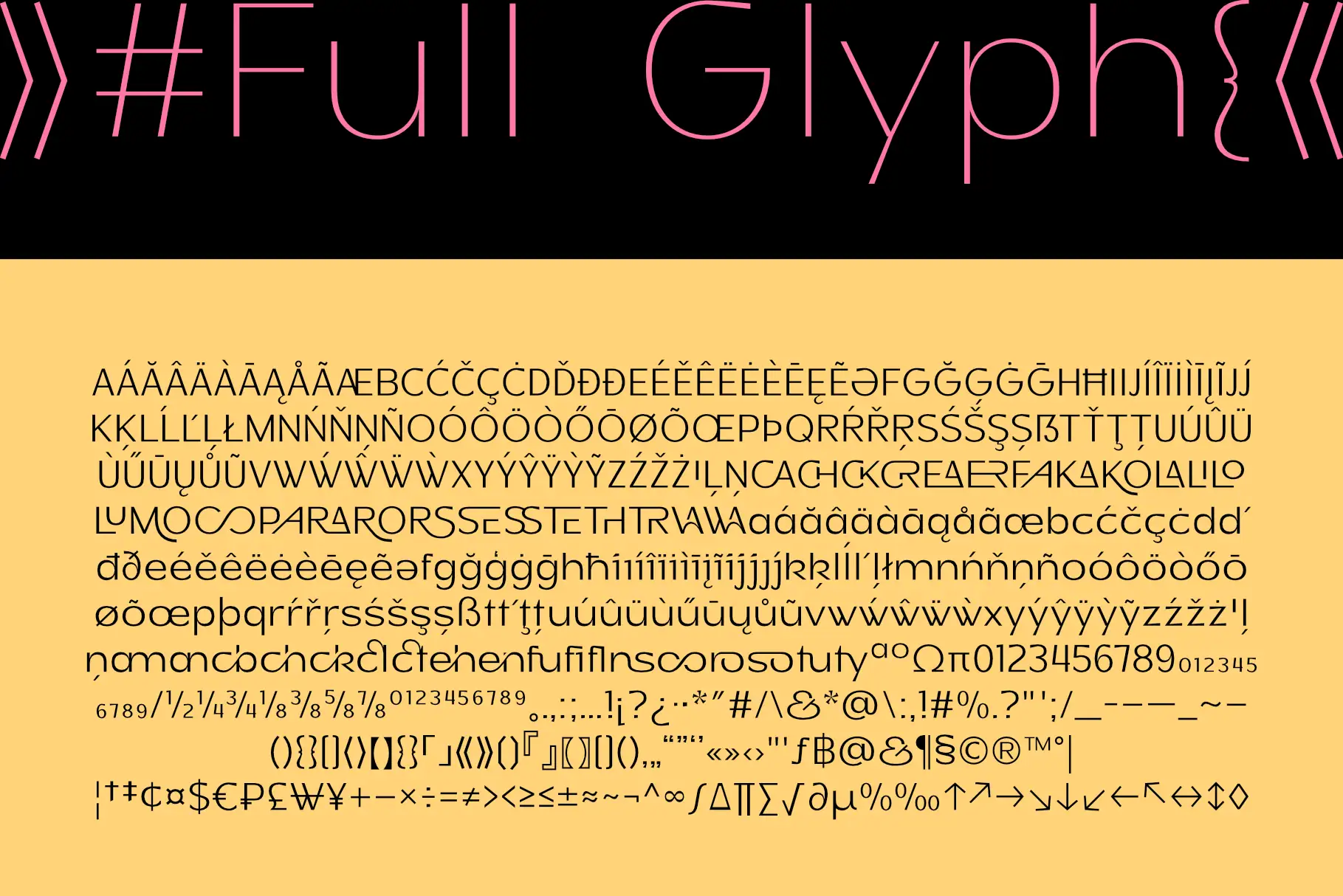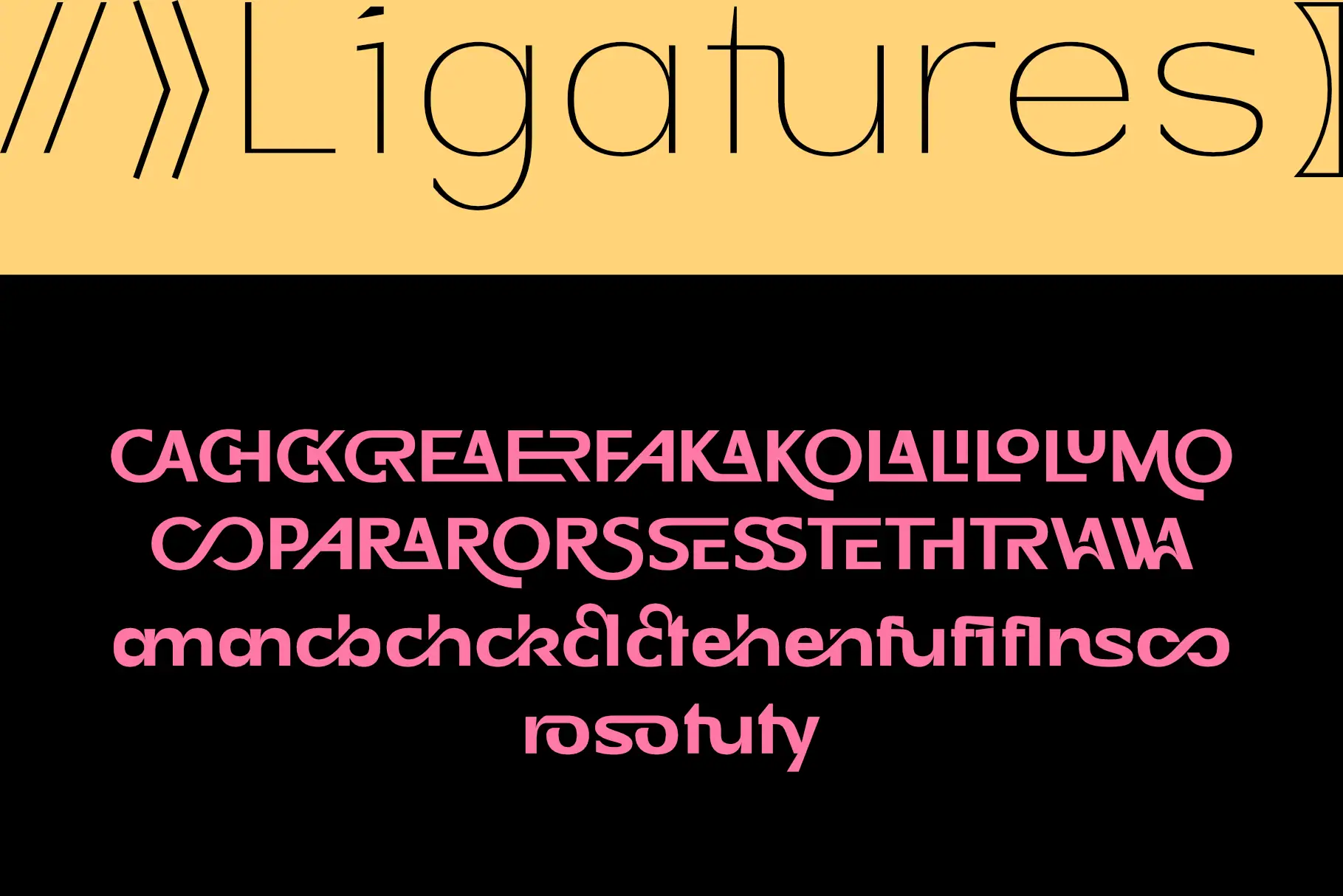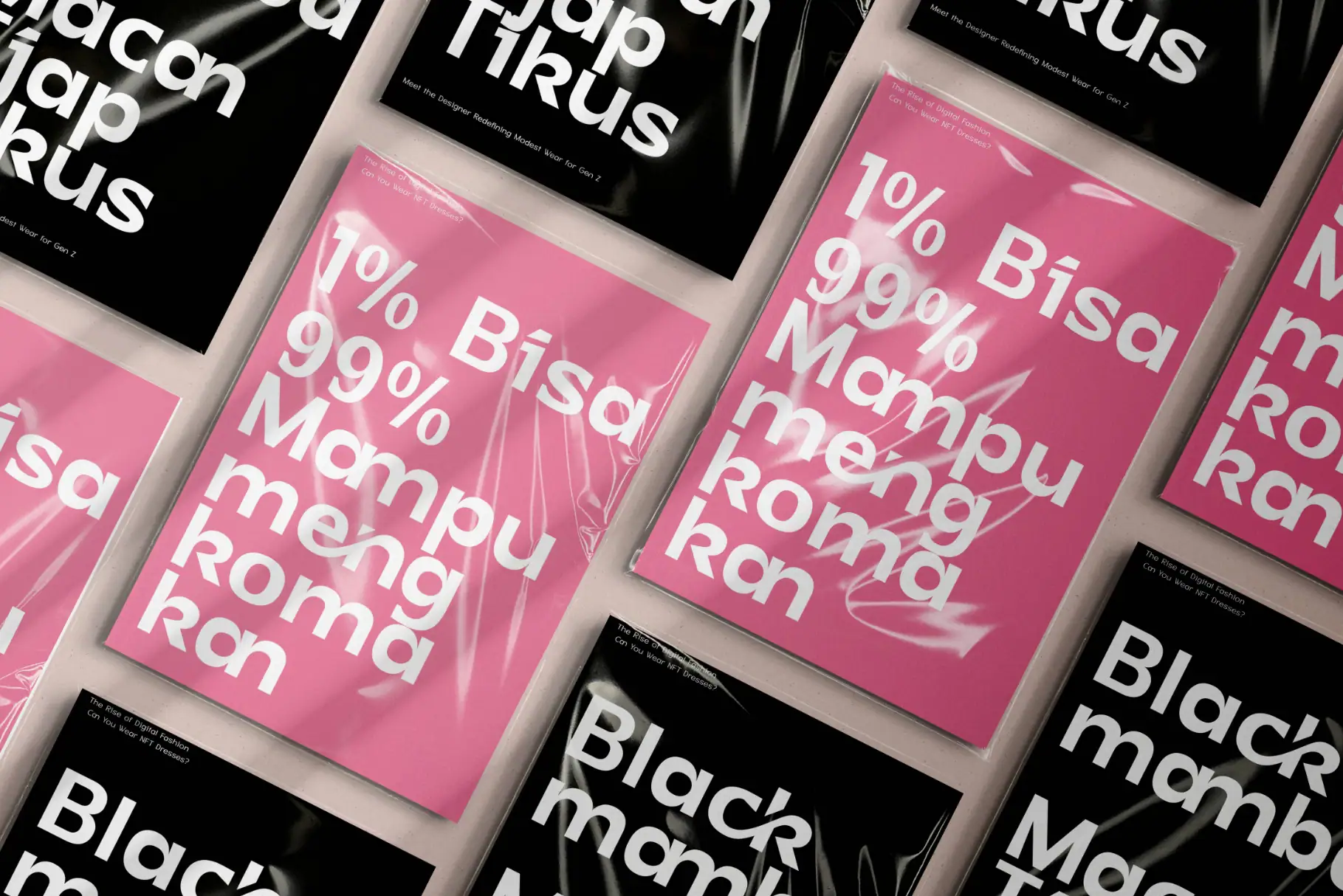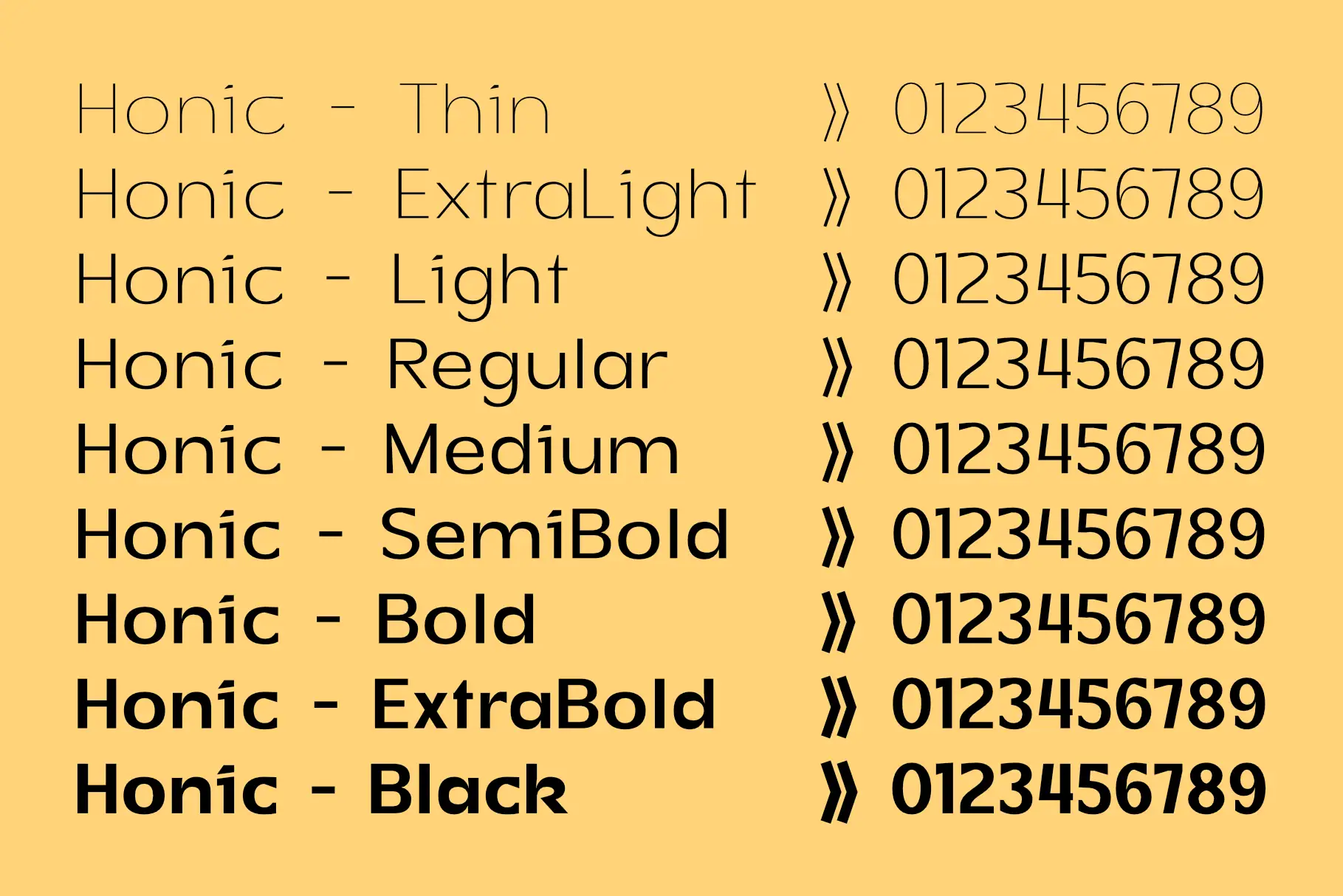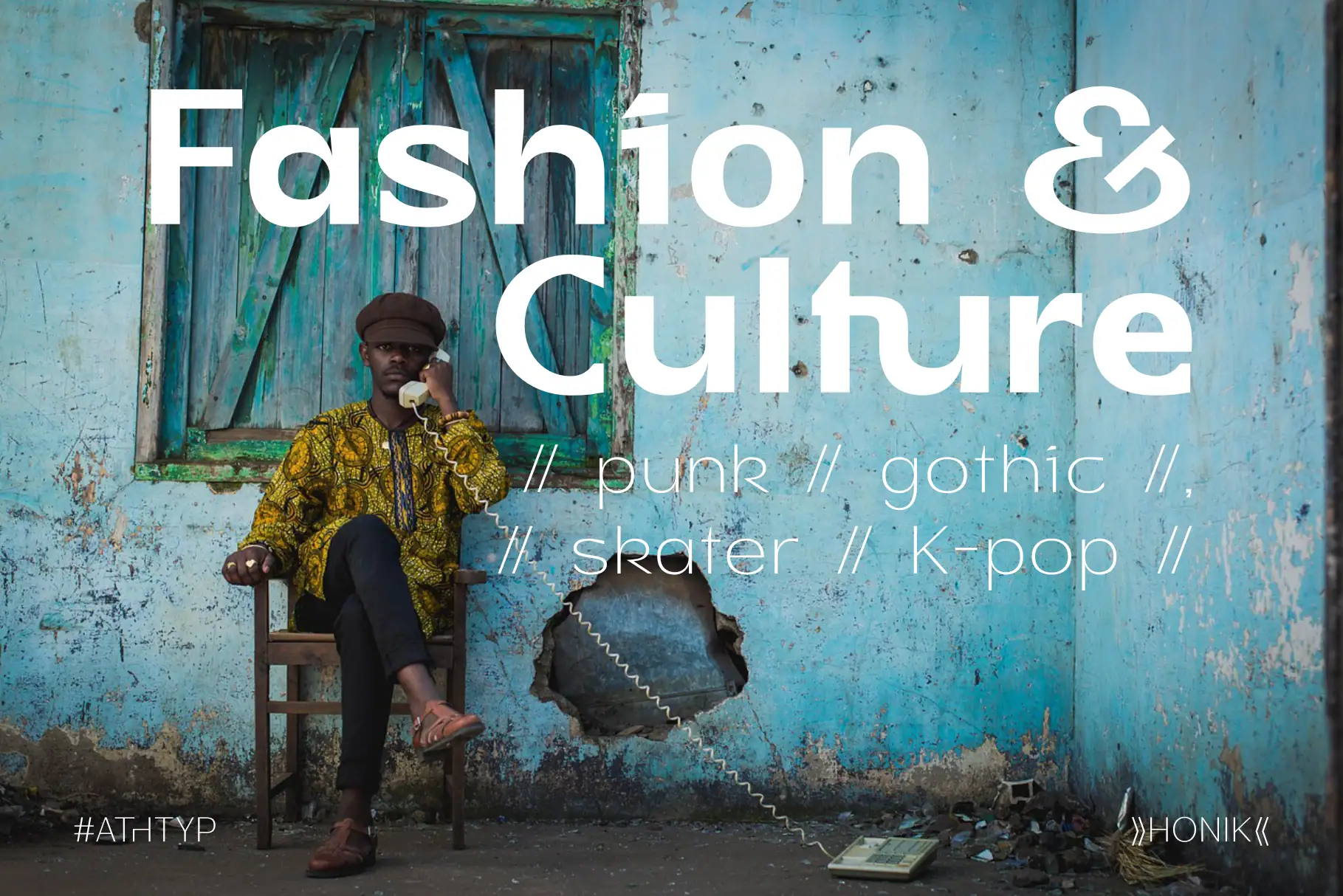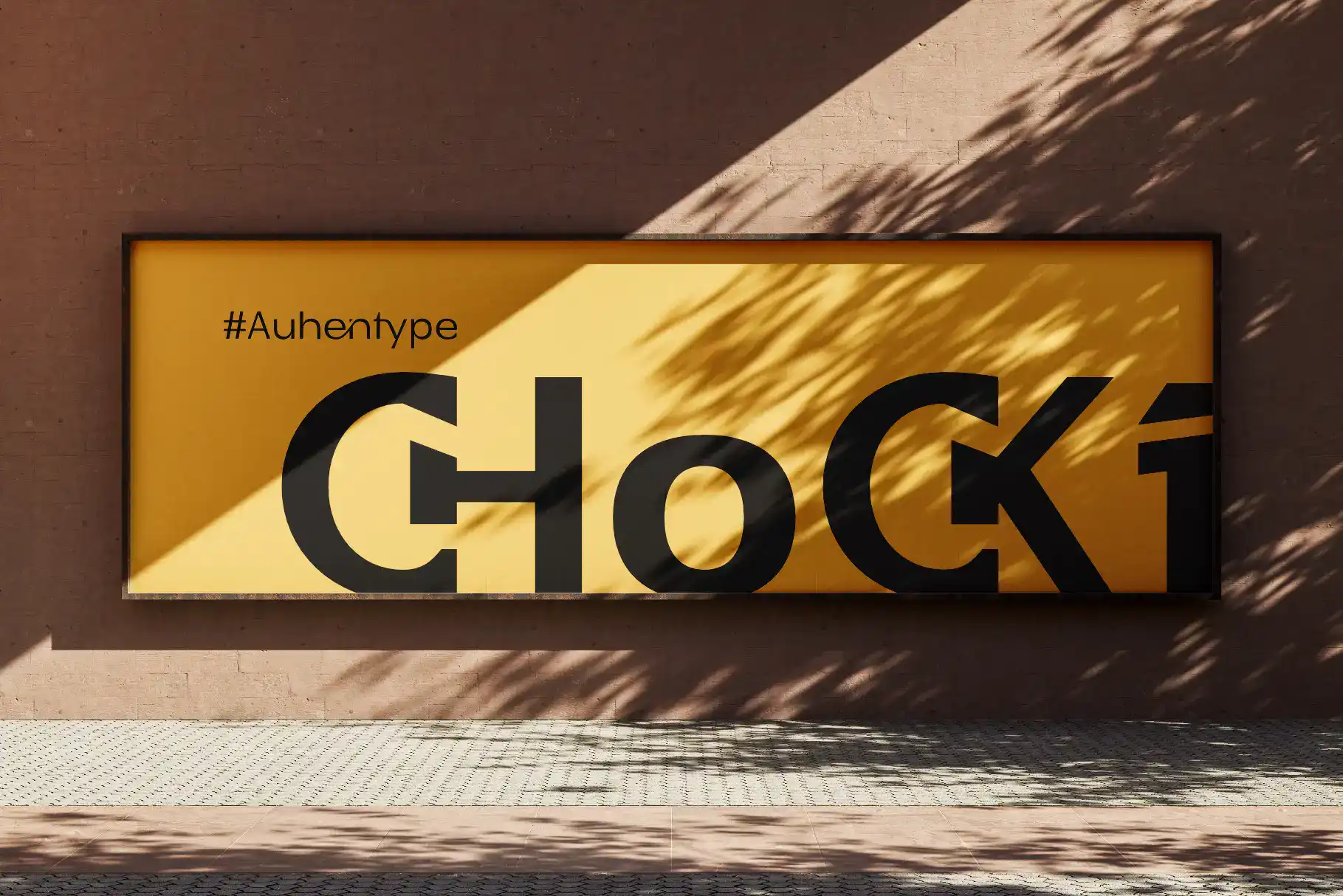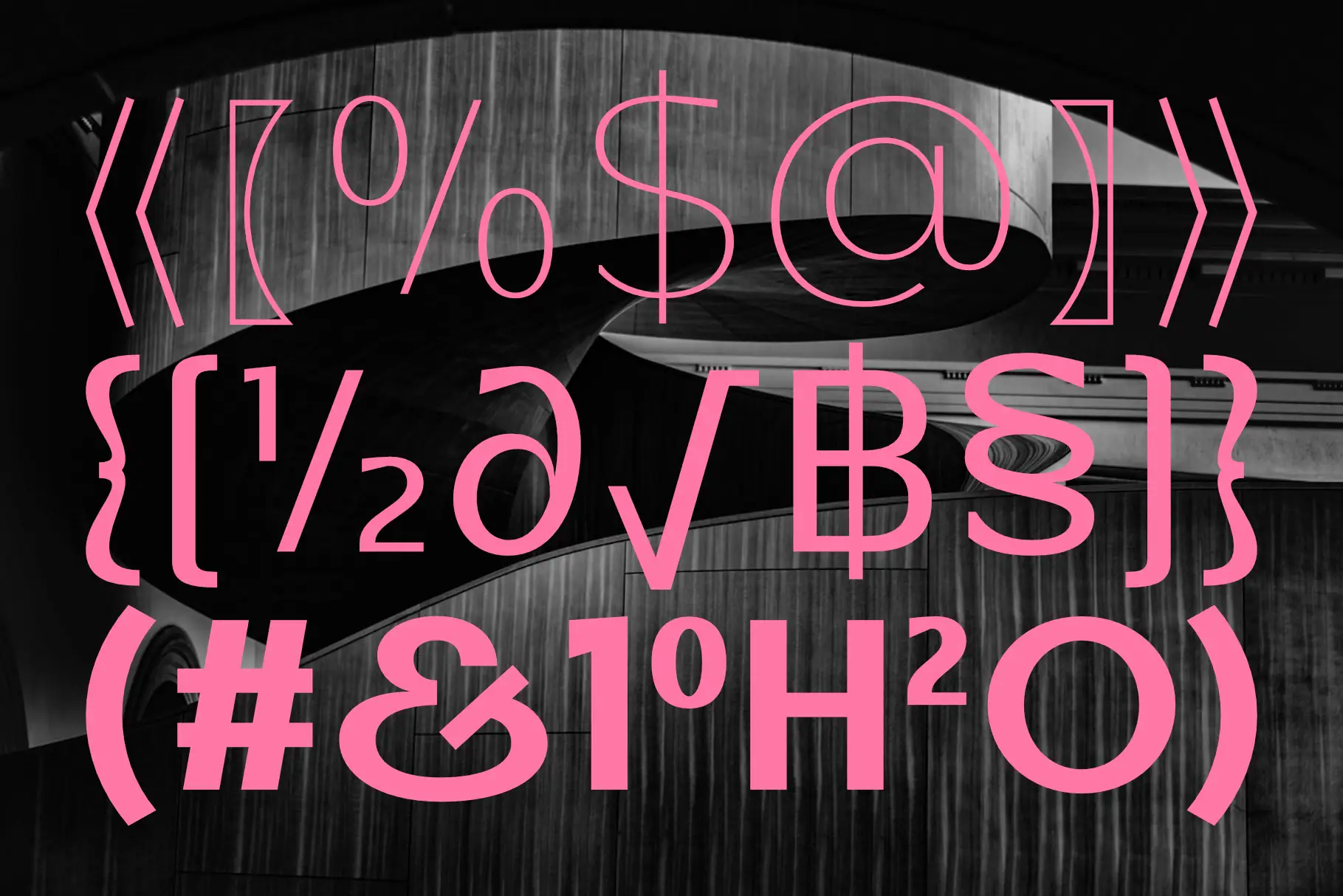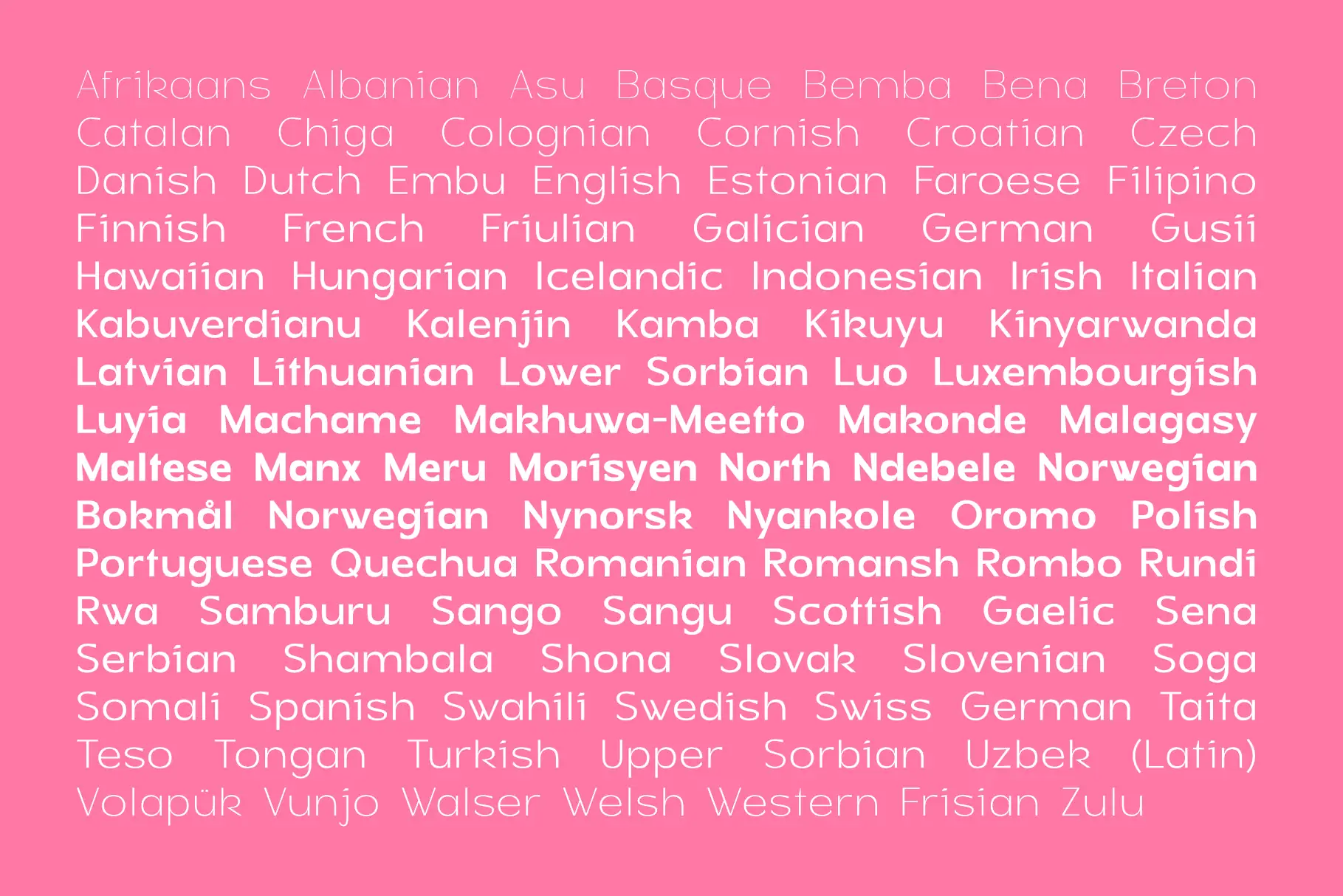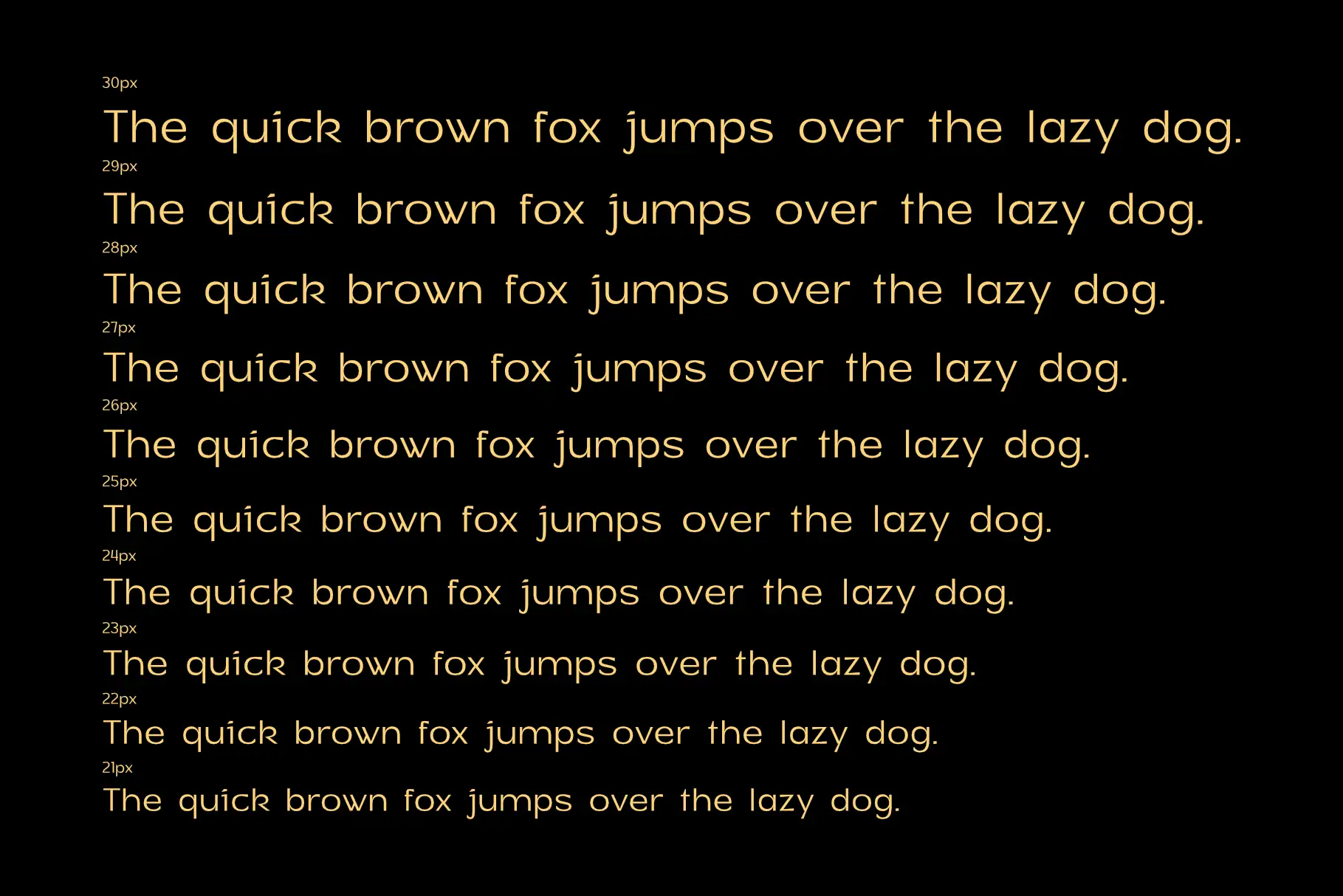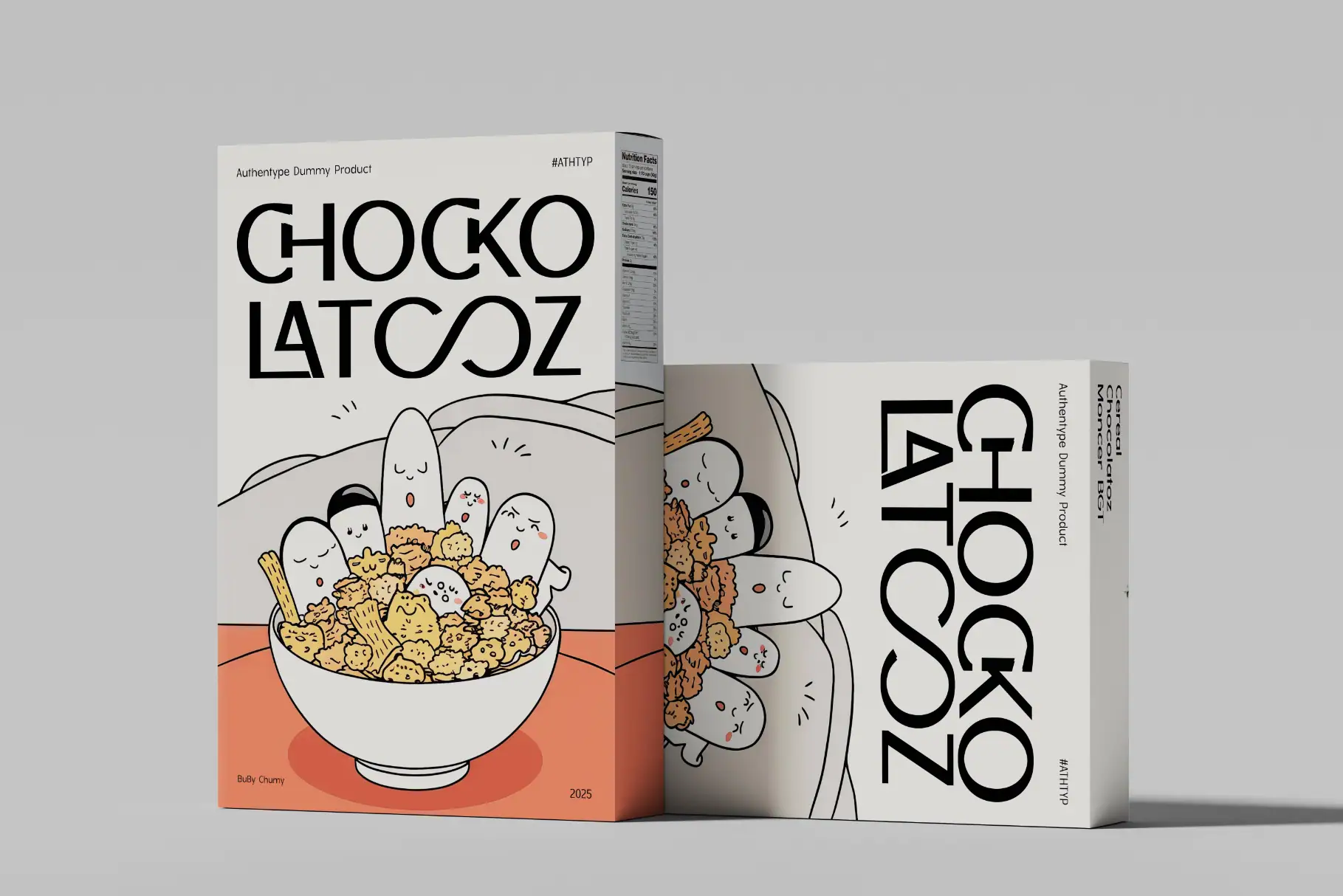
Honick - Clean and Modern Geometric Sans
HONICK Complete Family
Honick is a clean and modern geometric sans serif font designed for designers, brands, and creatives who want to stand out with confident, contemporary typography. With 9 font weights from Thin to Black. Honík offers maximum versatility for any design project from minimalist logos to bold editorial headlines.
This font family includes 543 glyphs, 51 unique ligatures, and full multilingual support for 90+ languages. Every letter is carefully crafted with smooth geometric curves and subtle unique cuts, giving Honík a friendly yet professional personality.
Honick is a clean, modern geometric sans serif font designed for designers, brands, and creatives who want confident, contemporary typography. With 9 font weights from Thin to Black, Honick offers maximum versatility for any design project — from minimalist logos to bold editorial headlines.
Each letterform is carefully crafted with smooth geometric curves and subtle cuts, giving Honick a distinctive personality without losing its clean, professional look.
Complete Font Family with 9 Weights
Multilingual Support & Unique Ligatures
Honick includes 543 glyphs and 51 ligatures to expand your creative possibilities. It supports over 90 languages with extended Latin scripts, making it the perfect typeface for global brands and multilingual projects.
Perfect for Branding, Editorial & Web Design
Use Honick for modern branding, stylish packaging, editorial headlines, and digital graphics. From sleek startups to bold fashion brands Honick elevates your design with its geometric charm.
Why Designers Love HonIk
Honick stands out with its clean geometric style, unique cuts, and playful yet professional feel. It’s flexible, easy to pair, and timelessly modern.